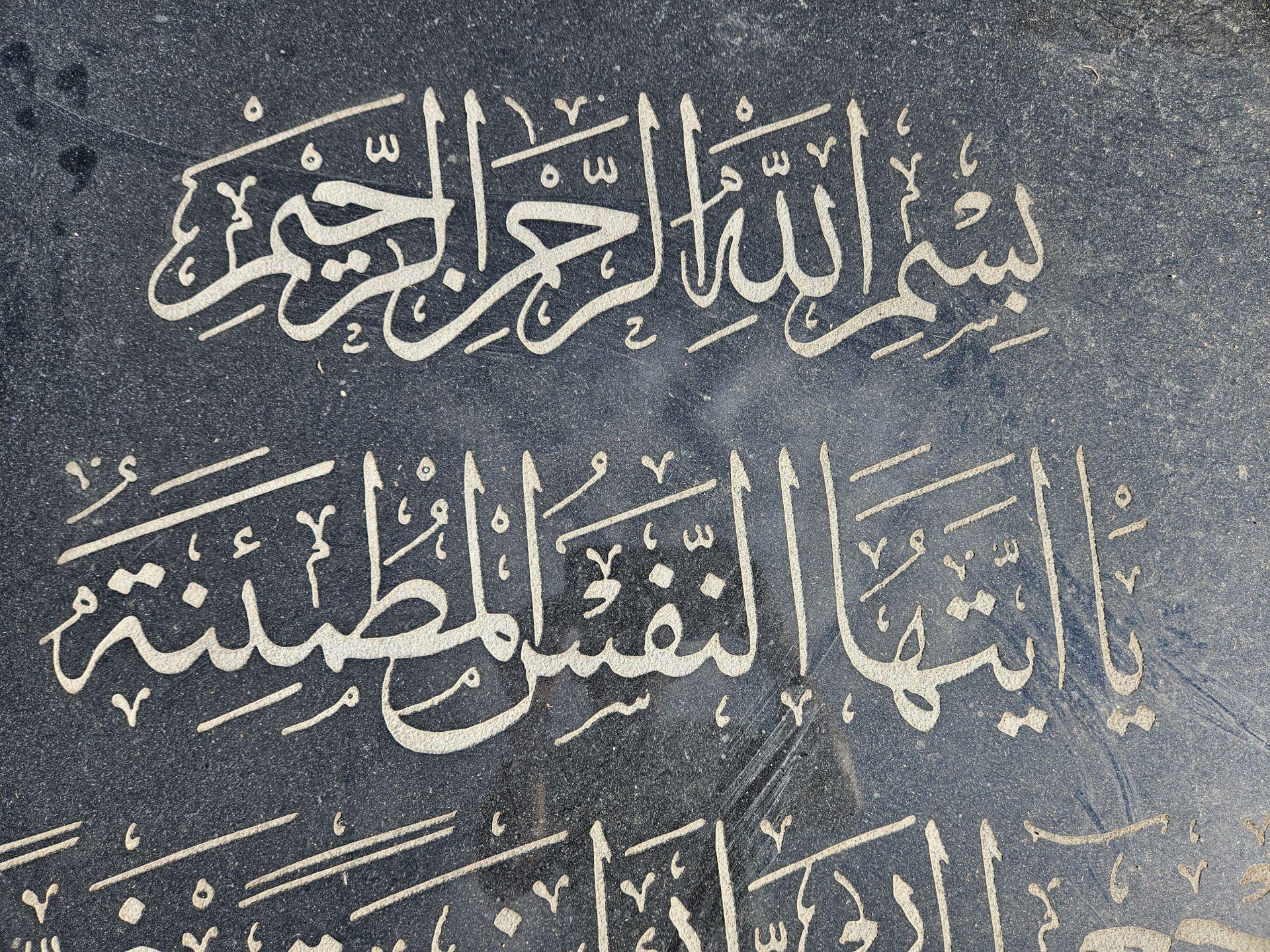
Can anyone help me with this ? TIA
While some Arabic fonts are available, I believe this falls under the category of Arabic calligraphy and was done by hand.